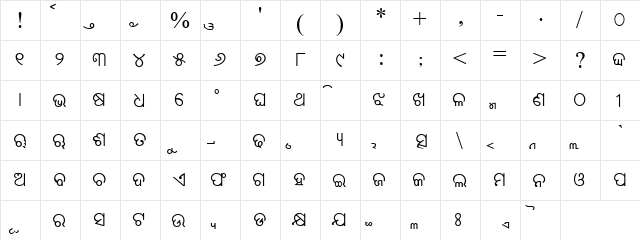
Maan Normal Odia Akhayara Odia Akhayara
| Style | Odia Akhayara |
Design Context for Maan Normal Odia Akhayara Typeface
Maan Normal Odia Akhayara is a composed and adaptable typeface that performs quietly and consistently across a wide range of design contexts.